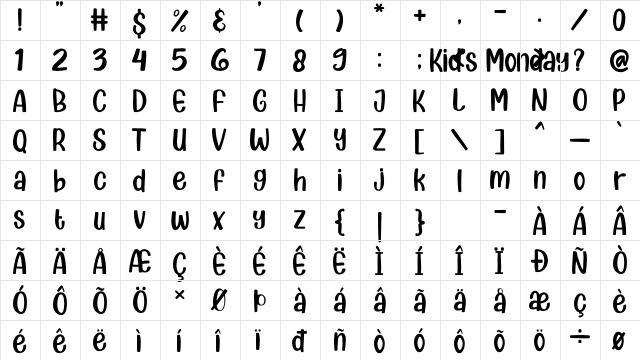
Kids Monday Regular Font Preview
Kids Monday Regular
Kids Monday Regular Font Details
Design Context for Kids Monday Typeface
Kids Monday has an approachable, lighthearted character — its loose, expressive forms are well-suited to children's content, casual branding, and fun-first design.
Font Pairing: Pairs well with a rounded or humanist sans for body copy, maintaining the friendly tone without relying on Kids Monday to carry extended reading.
Pro Tip: Use Kids Monday at larger display sizes where its expressive character can land. Pair with a clean, simple sans for body copy to maintain readability.